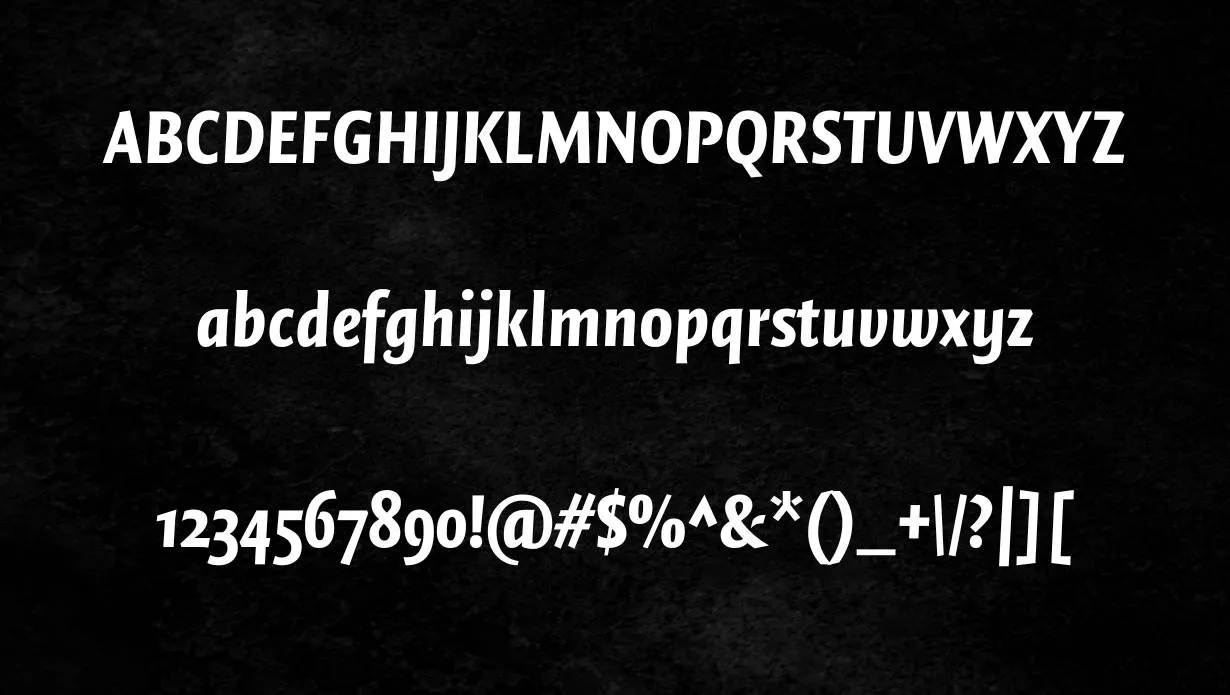
Quadraat Sans Regular Expert Font is a versatile typeface designed for clarity and readability. It has a balanced weight and medium width, making it suitable for various applications such as body text in publications and user interfaces.
| Name | Quadraat Sans Regular Expert Font |
| Designer | Fred Smeijers |
The technical details emphasize its precision and attention to detail, making it an excellent choice for projects that prioritize clear communication without sacrificing aesthetic appeal.